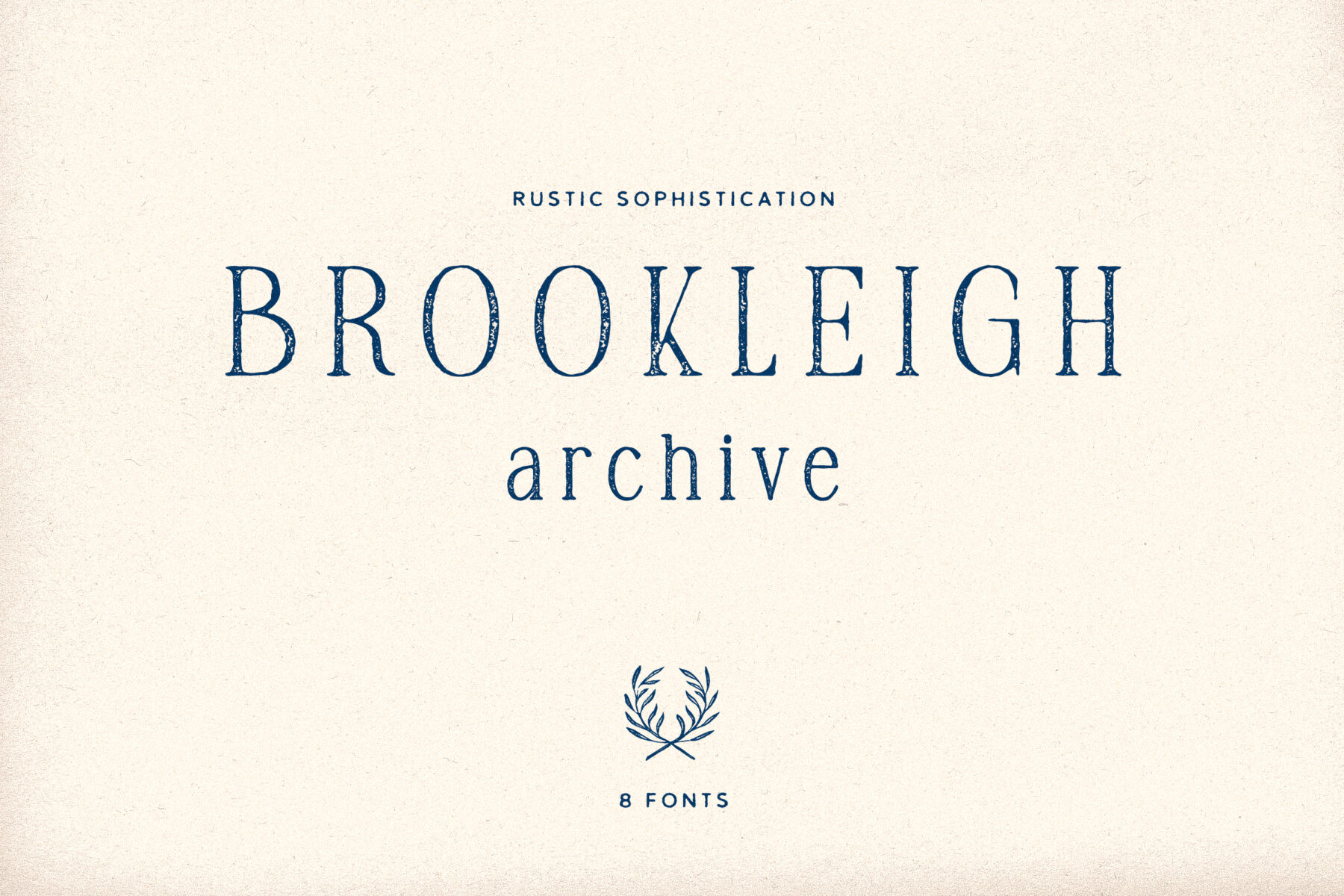
Brookleigh Archive – A Beautifully Rustic Font Pack
Brookleigh Archive
– where rustic charm meets refined sophistication. This versatile font family is perfect for projects seeking a touch of authenticity and elegance, whether it’s for wedding invitations, logos, branding, packaging, and more.
Brookleigh Archive builds upon the original Brookleigh font, adding a fresh twist and unlocking new creative possibilities.
– TC Brookleigh Archive Print: Non-textured fonts with a subtly rough edge. This set offers a clean, printed look. Available in regular, bold, extended regular, and extended bold styles.
– TC Brookleigh Archive Rough (my personal favorite): These textured beauties bring a wonderfully aged, printed effect that exudes character and charm. Also available in four styles: regular, bold, extended, and extended bold.